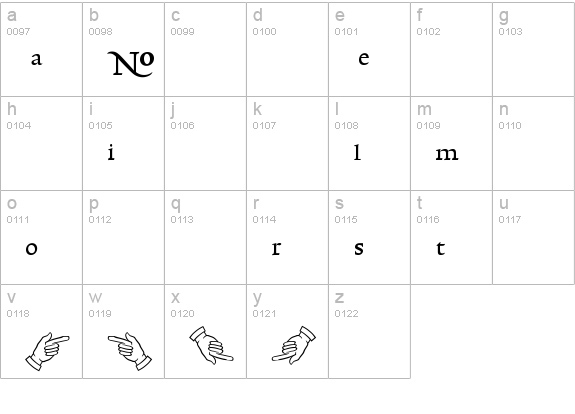
TriniteNo2-RomanWidePi font is an exquisite display font that combines elegance with a touch of modernity. Its wide and bold letterforms exude confidence and make a powerful statement in any design project. With its unique blend of classic and contemporary elements, TriniteNo2-RomanWidePi font is perfect for headlines, titles, logos, and branding materials. Its distinct character set includes a wide range of uppercase letters, numbers, and various special characters, allowing designers to add a distinctive flair to their work. One of the standout features of this font is its versatility. Whether you're working on a corporate presentation, a fashion magazine layout, or a website design, TriniteNo2-RomanWidePi font will effortlessly elevate your project to new heights. And the best part? TriniteNo2-RomanWidePi font is completely free! Yes, you read that right. This stunning font is freely available to download at FontsMarket.com. It gives designers the opportunity to add a touch of sophistication to their work without breaking the bank. So, if you're looking for a font that combines elegance, versatility, and affordability, look no further than TriniteNo2-RomanWidePi font. Download it now from FontsMarket.com and let your creativity soar.